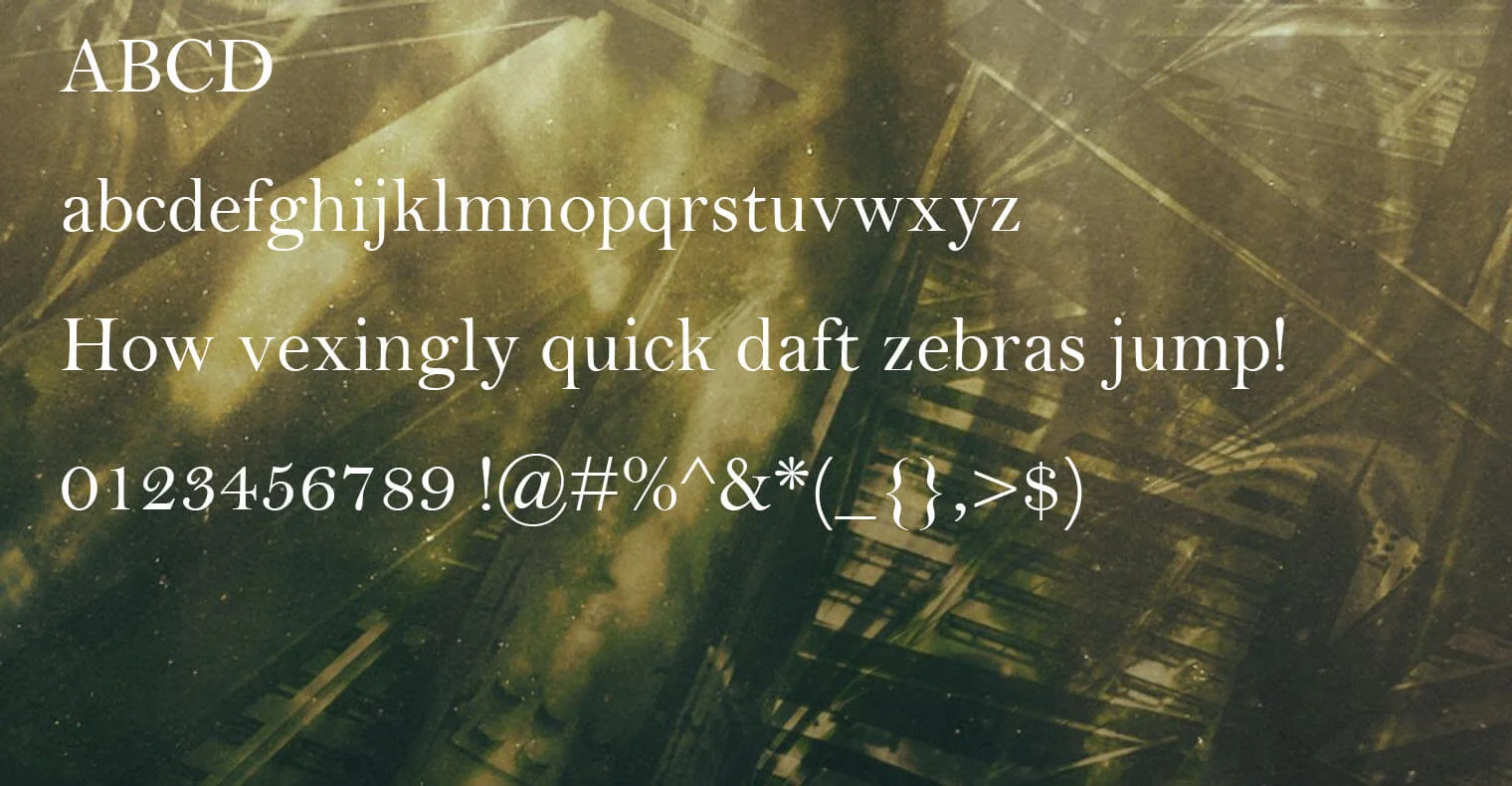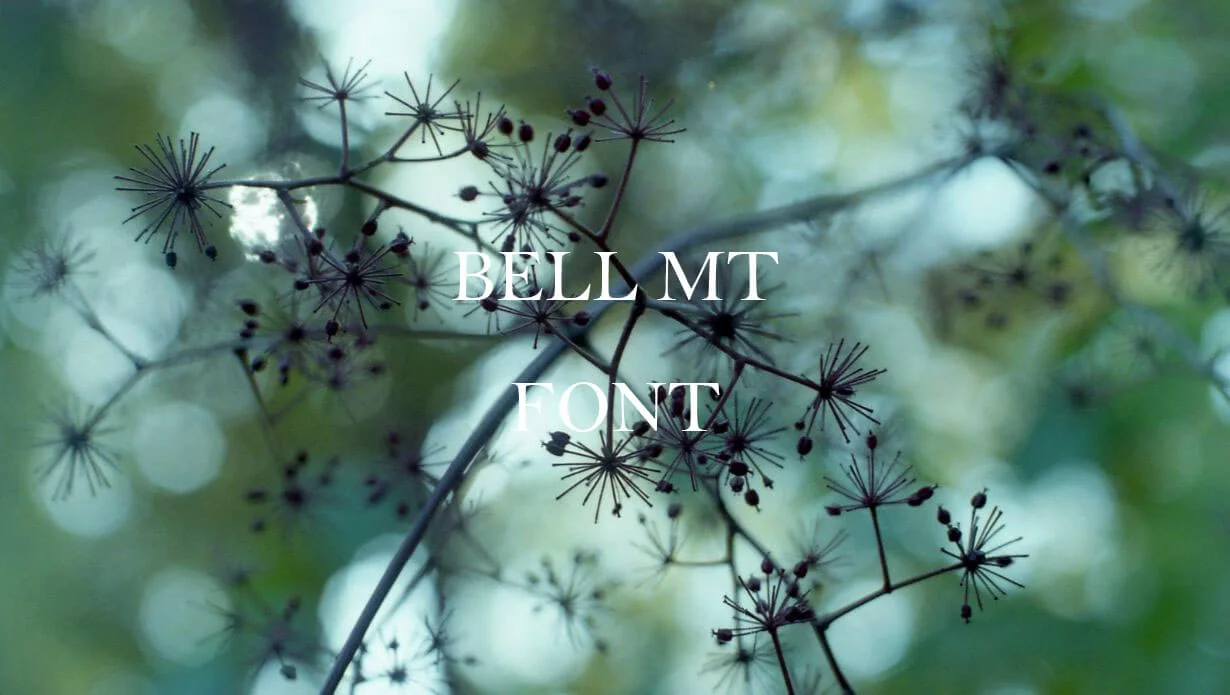
About Bell MT Font
Allow me to introduce to you Bell Mt Font, a serif typeface family that was crafted in 1788 for the British Letter Foundry by the skilled hand of Punchcutter Richard Austin. Its publication was made possible by John Bell, who utilized it multiple times.